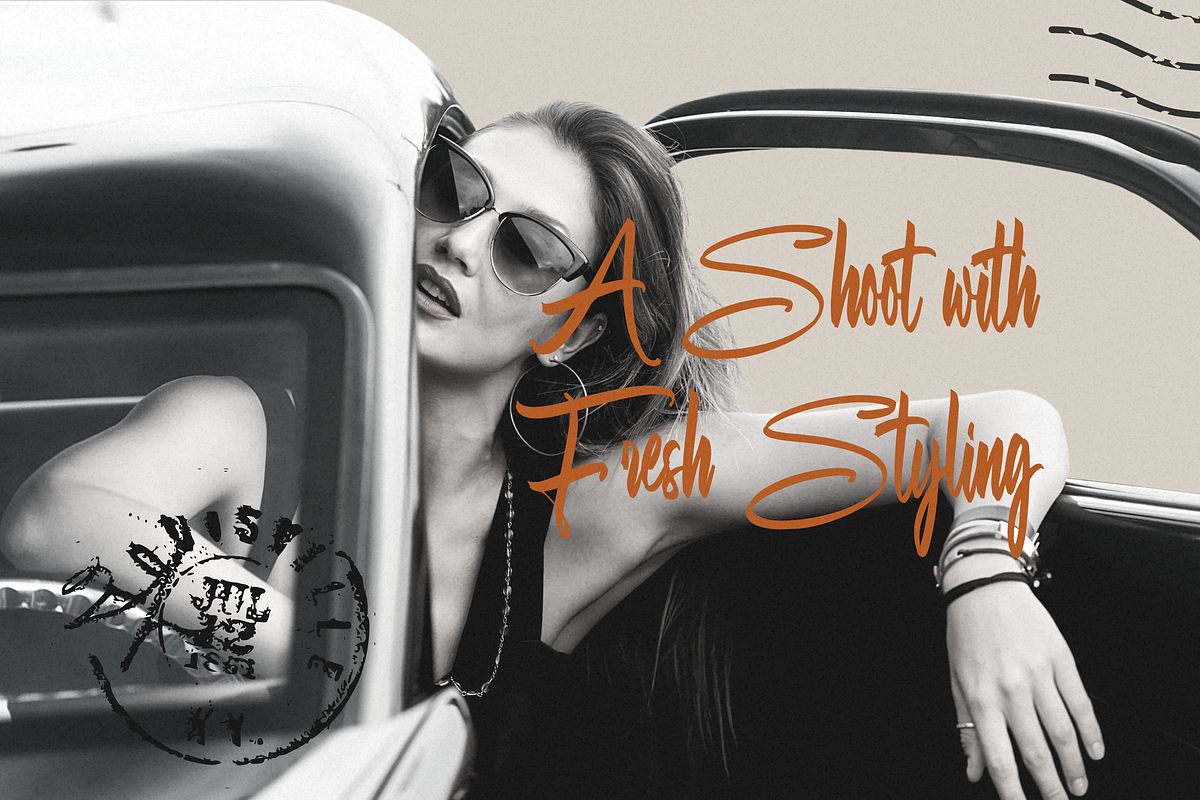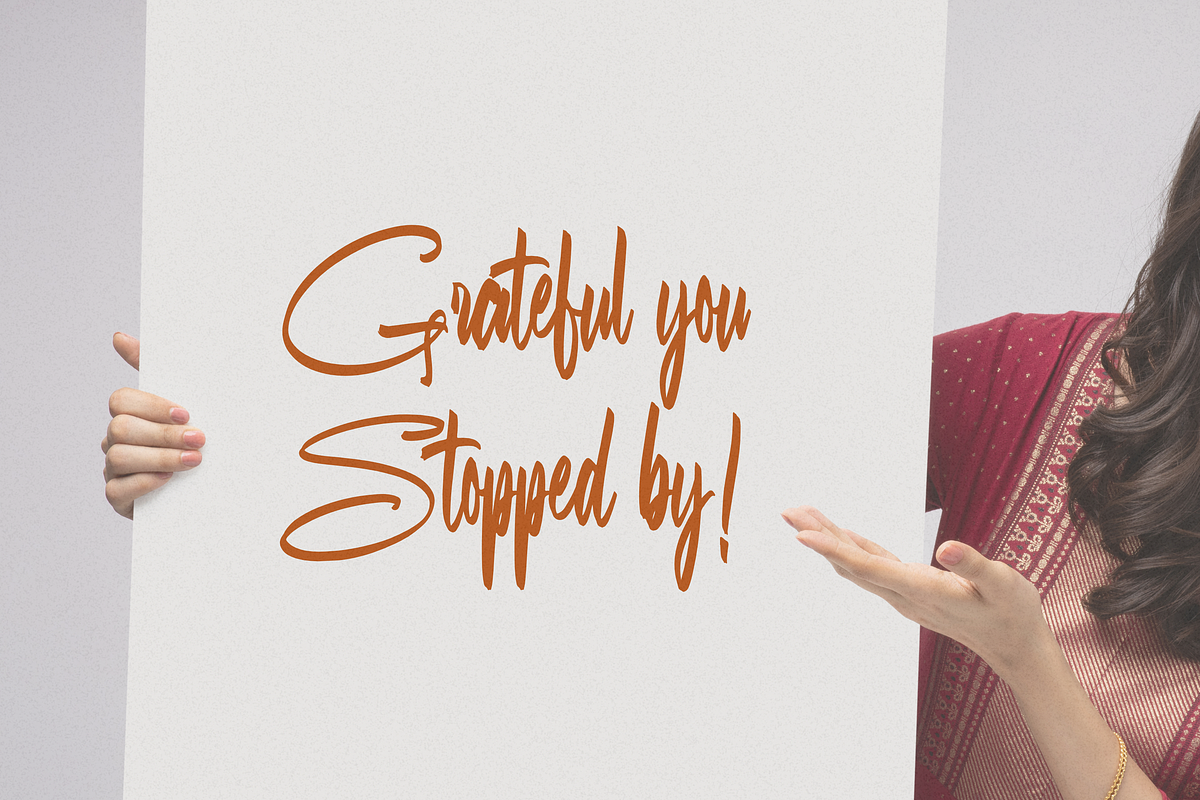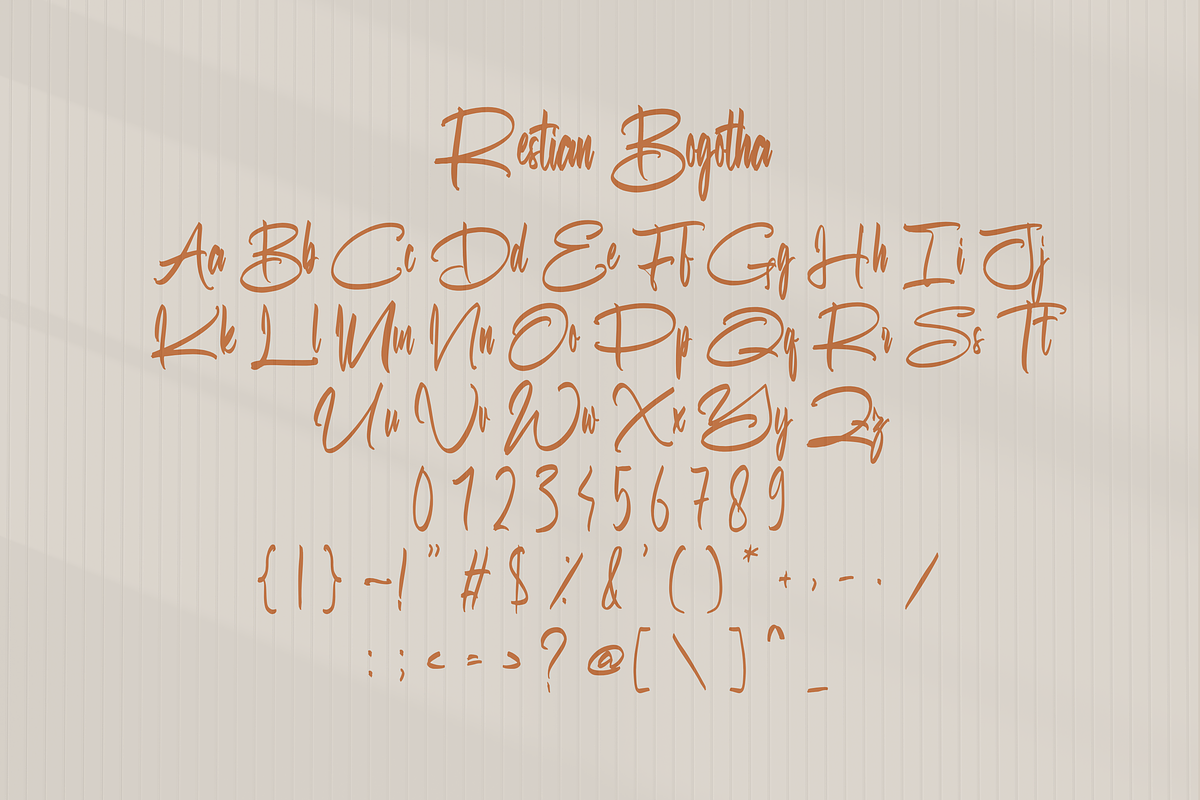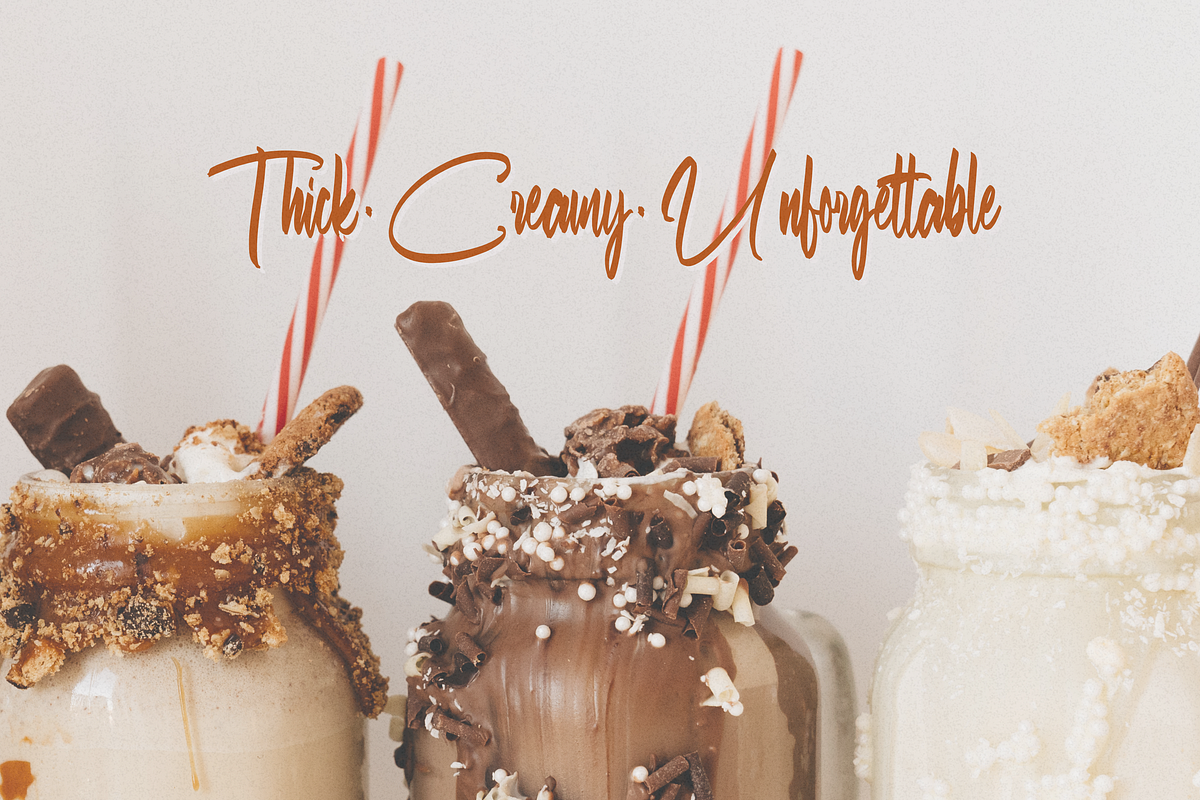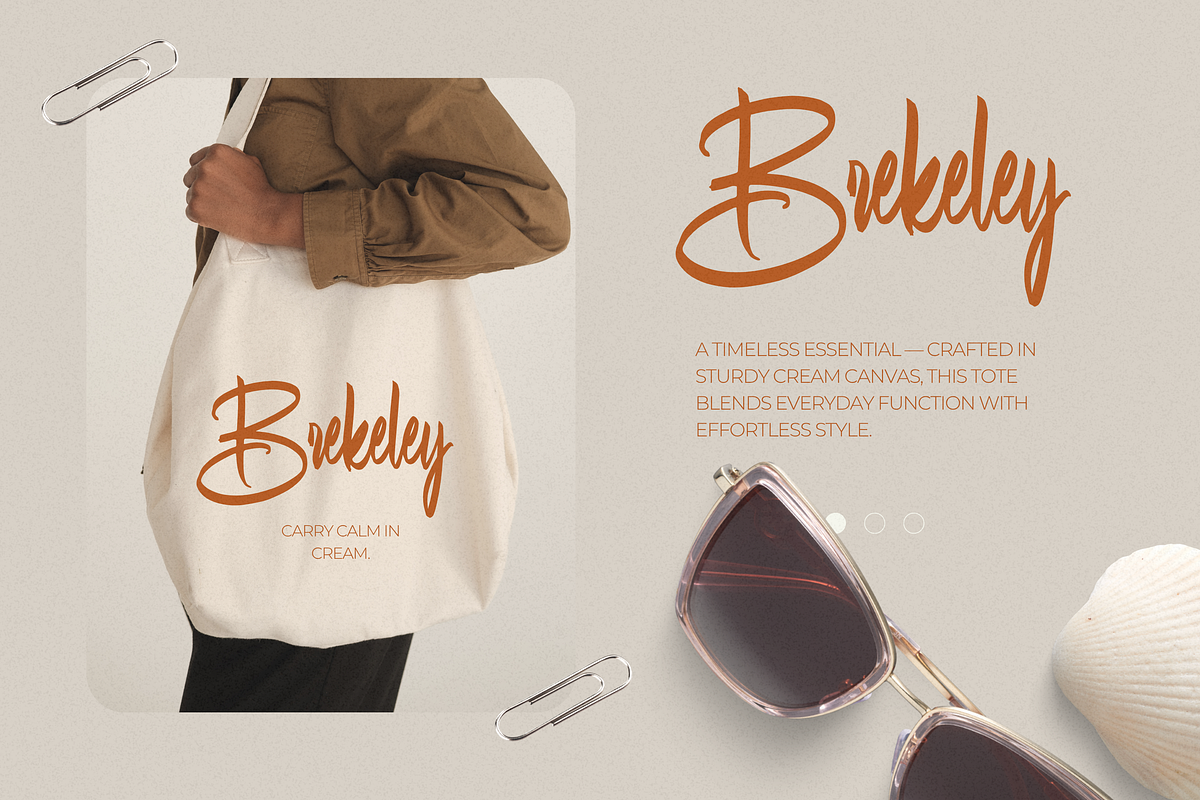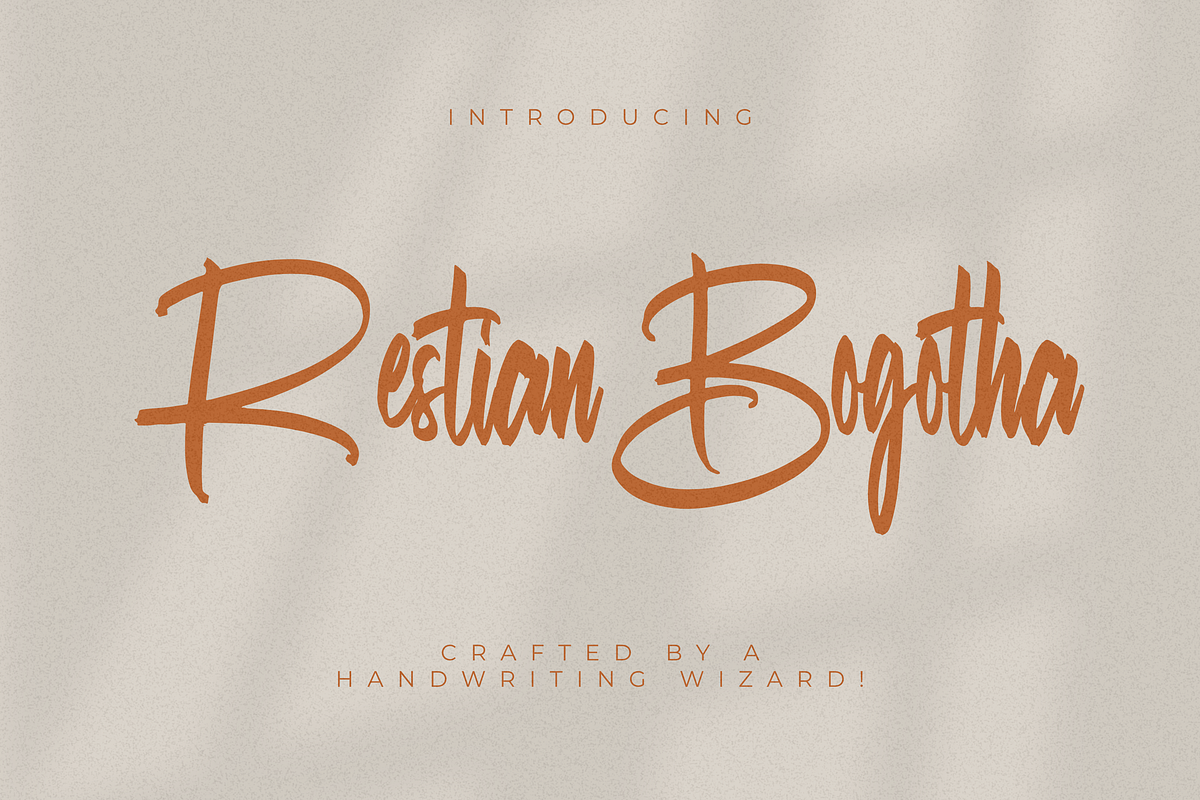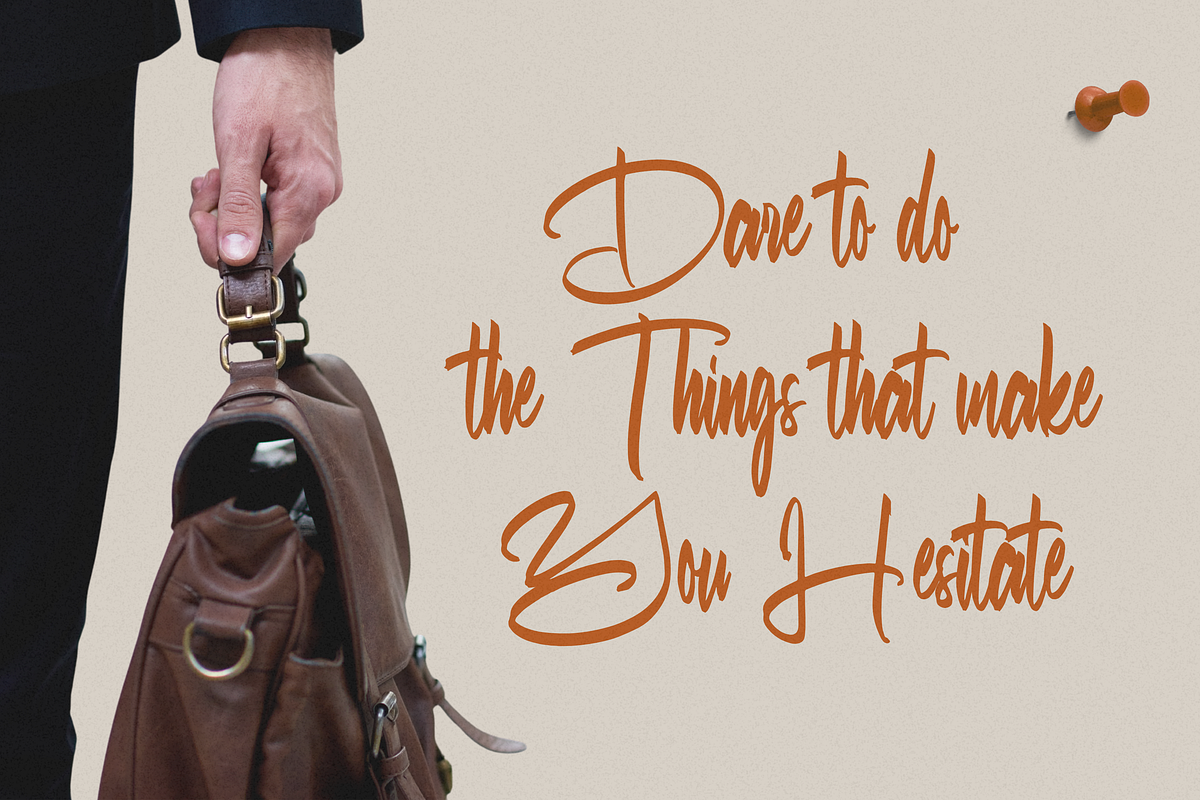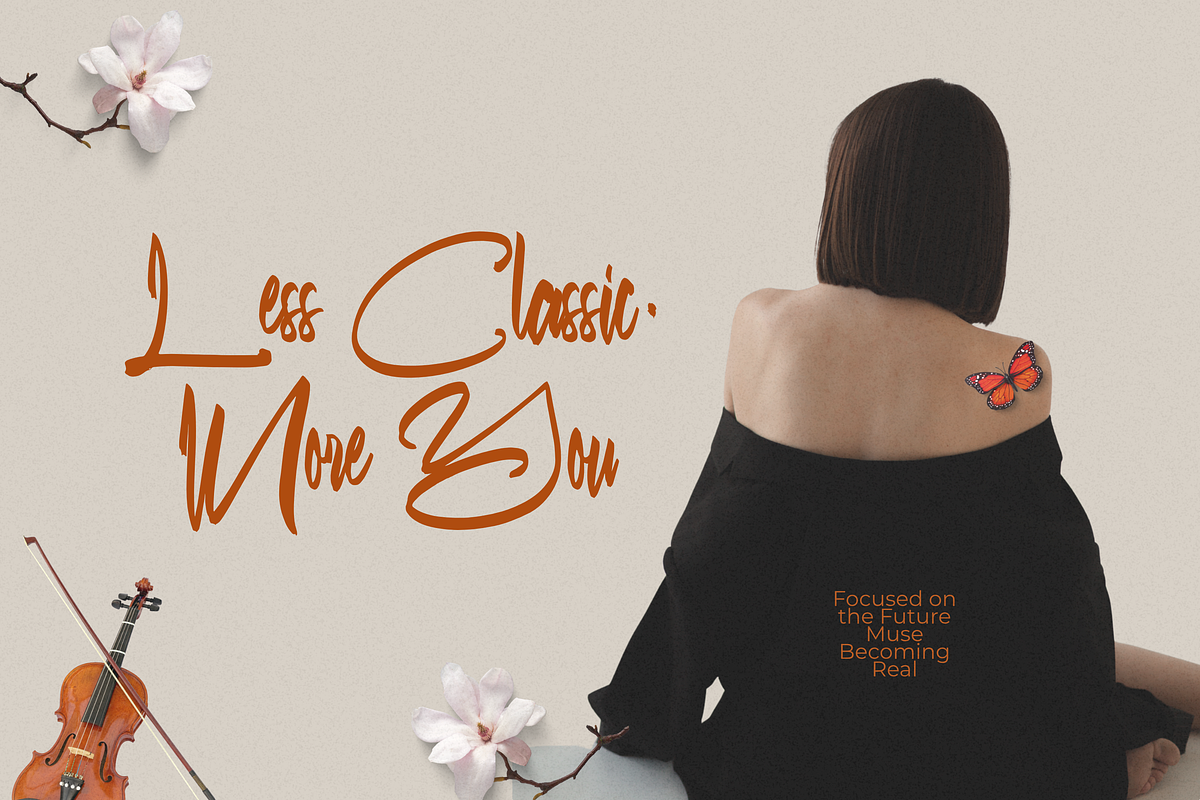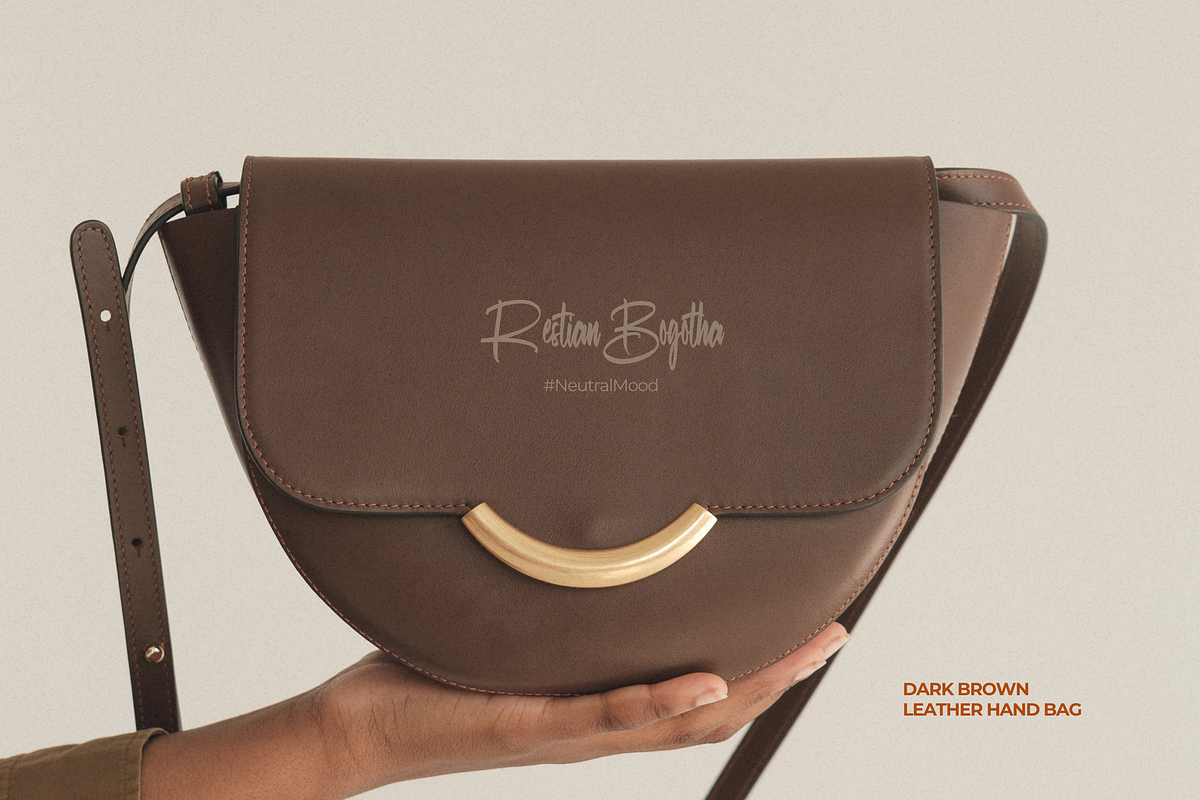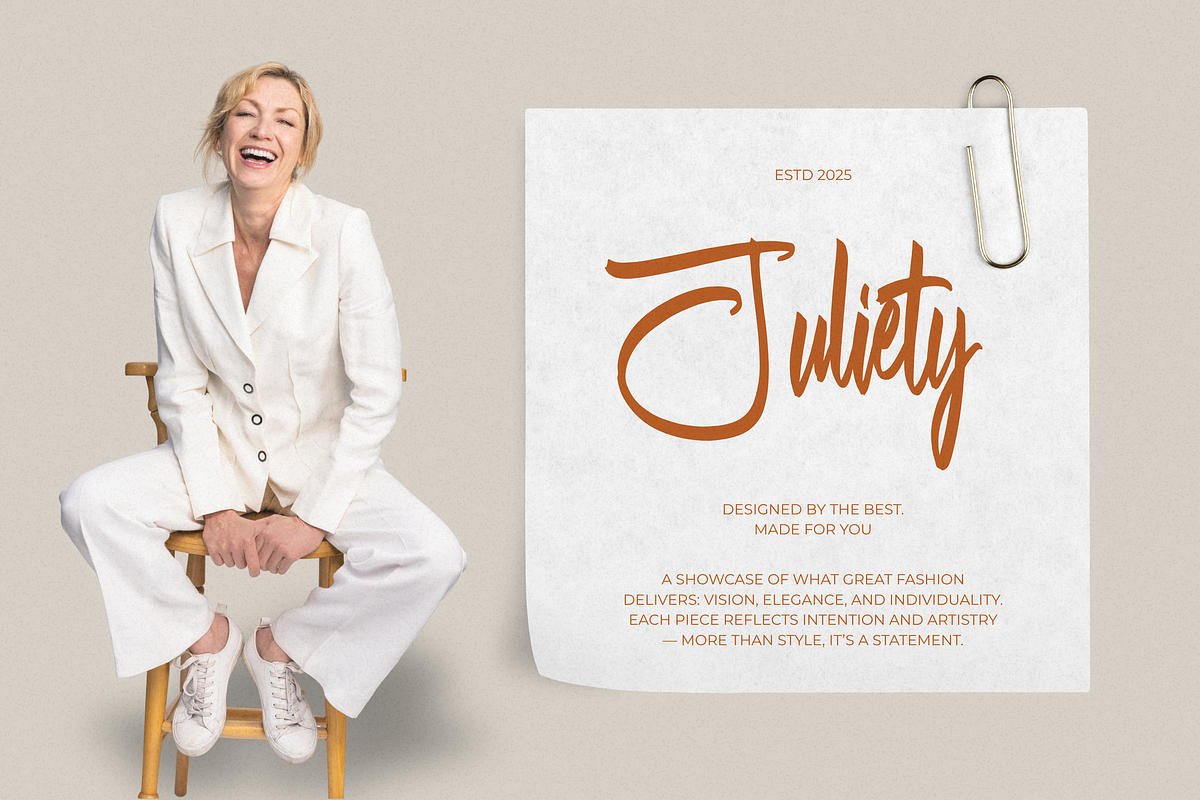
Restian Bagotha
Restian Bagotha – Elegant Script Typeface Restian Bagotha is a luxurious script typeface with flowing curves, graceful swashes, and refined letterforms. Inspired by classic calligraphy with a modern twist, this font is designed to evoke sophistication and emotion — perfect for branding, wedding stationery, high-end packaging, and editorial design.
Each stroke is crafted with attention to detail, giving your designs a sense of movement, style, and personality. Restian Bagotha is ideal for logotypes, headlines, invitations, and anything that calls for a beautifully expressive touch.